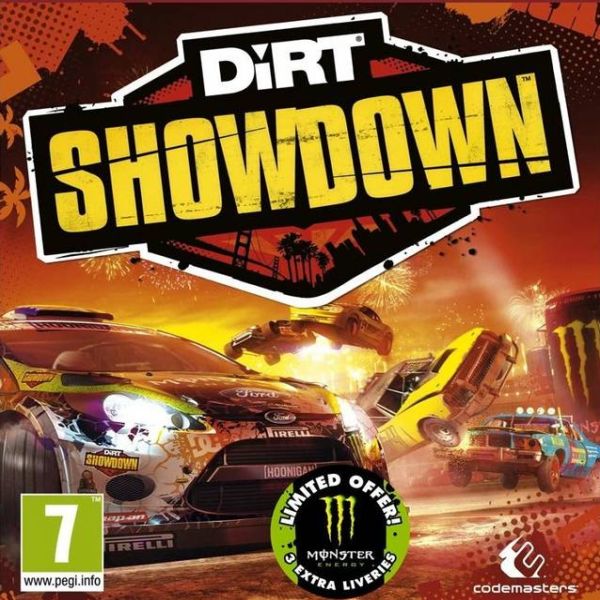
Dirt: Showdown Font
Fonts in UseDirt: Showdown is a racing video game developed by Codemasters and released in 2012. It is available on various gaming consoles including PlayStation 3, Xbox 360, and PC. The game features a variety of different racing modes and emphasizes high-speed, high-intensity gameplay.
It appears that the game logo utilizes two distinct fonts: Helvetica Black has likely been modified to create the "DIRT" portion, whereas the "SHOWDOWN" part is likely represented by Compacta.